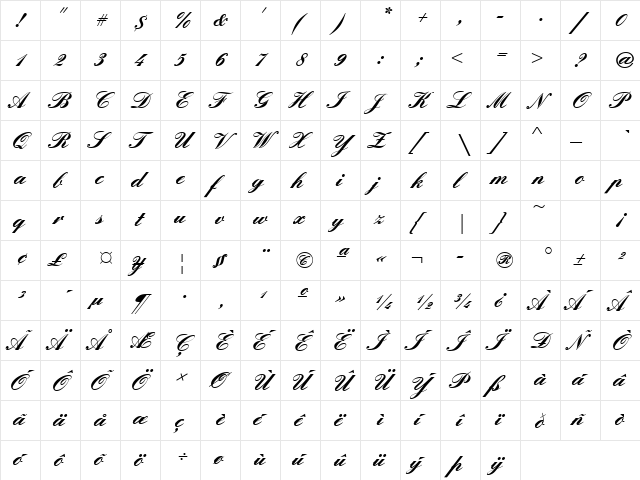
EnglischeSchJoiT Bold
Design Context for EnglischeSchJoiT Typeface
EnglischeSchJoiT is a composed and adaptable typeface that performs quietly and consistently across a wide range of design contexts. Its bold stroke weight gives it real presence on the page.